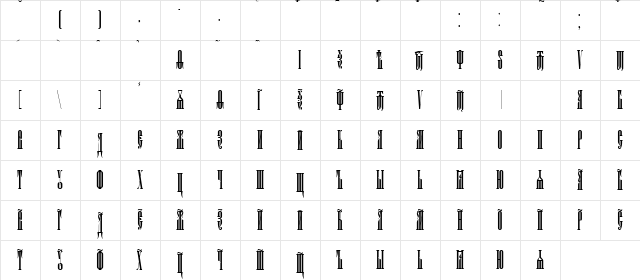
Psaltyr Normal
Design Context for Psaltyr Typeface
Psaltyr is a composed and adaptable typeface that performs quietly and consistently across a wide range of design contexts.